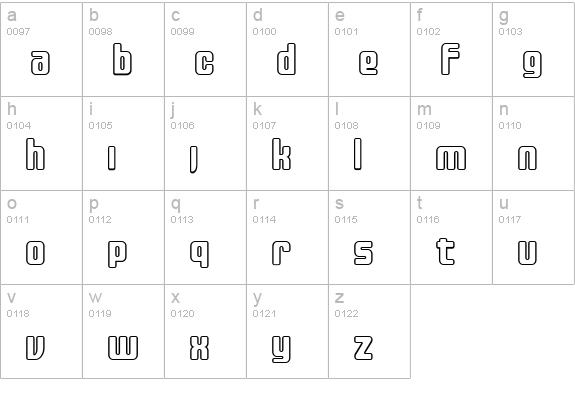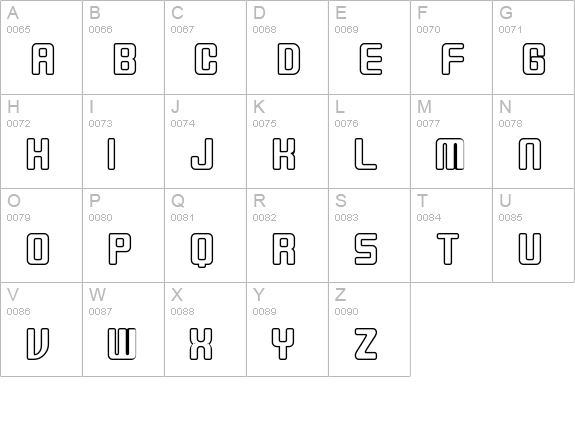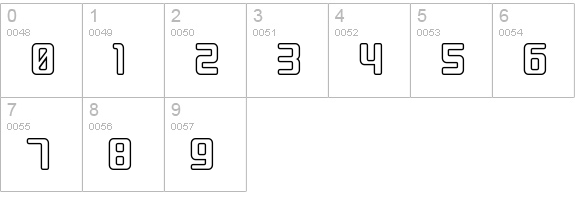
Introducing the captivating and modern Disc font, a versatile typeface that effortlessly combines sleek sophistication with an edgy charm. With its clean lines and geometric shapes, Disc font is perfect for creating eye-catching designs that demand attention. Whether used for branding, advertising, or editorial projects, this font brings a contemporary edge to any layout. What's even better is that Disc font is available for free download at FontsMarket.com. That's right, you can elevate your designs with this stunning typeface without breaking the bank. Don't miss out on the opportunity to add this dynamic font to your collection and unleash your creativity today!